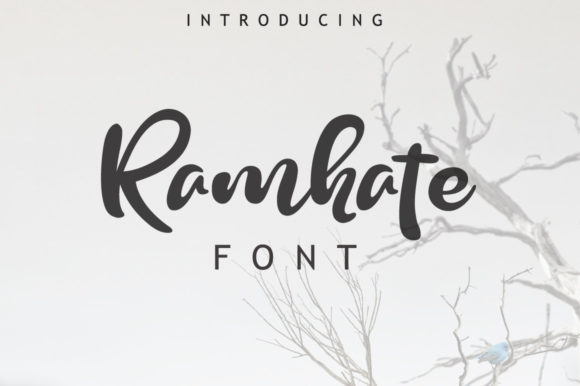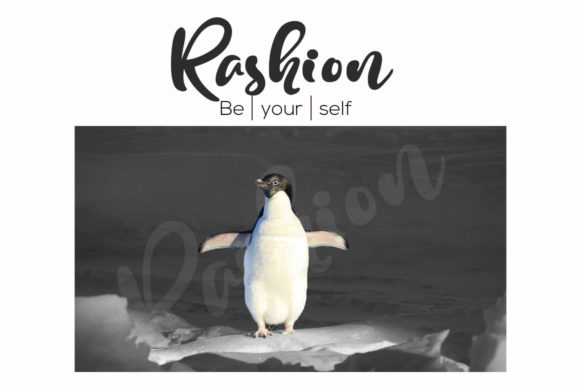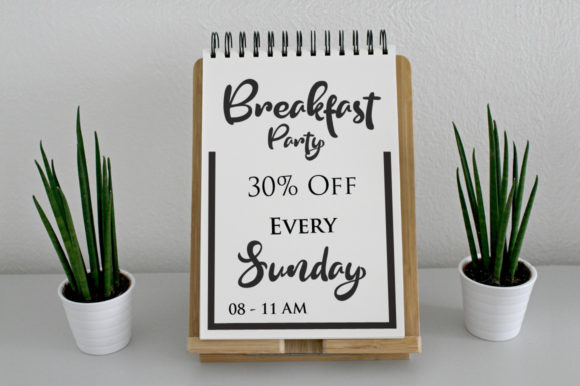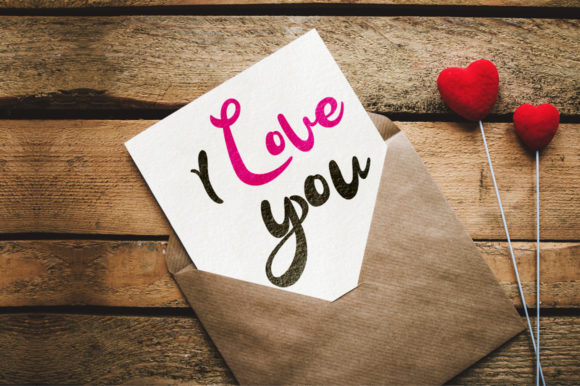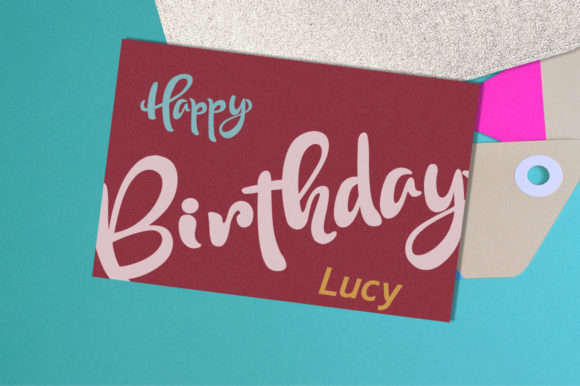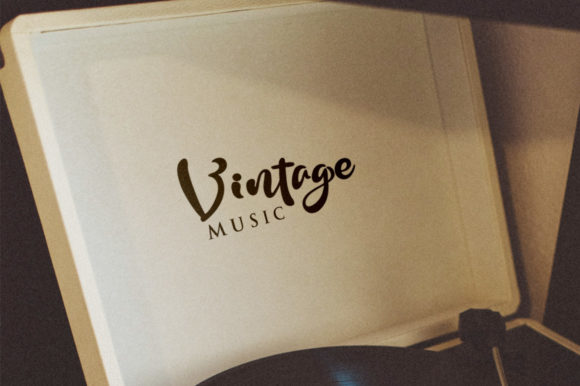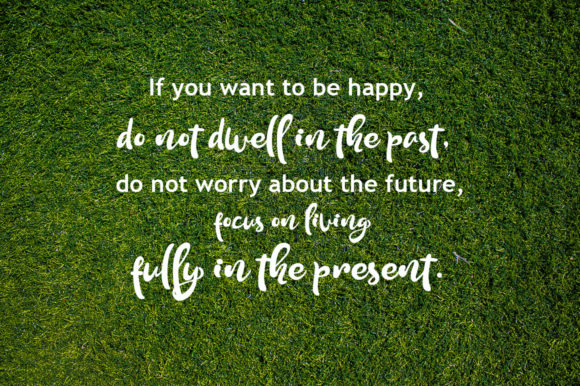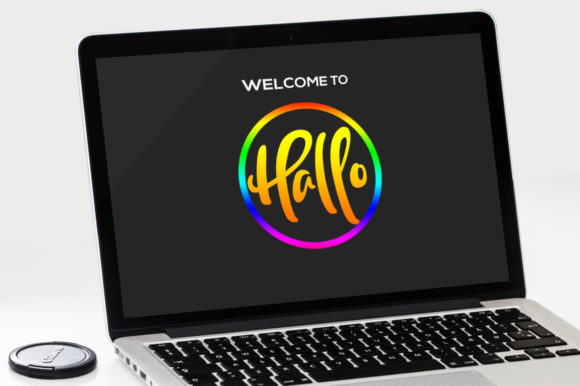
Ramhate Font
About Ramhate Font
Ramhate is a bold and charming script with a unique twist. It will add a personal touch to your next design project in an instant.